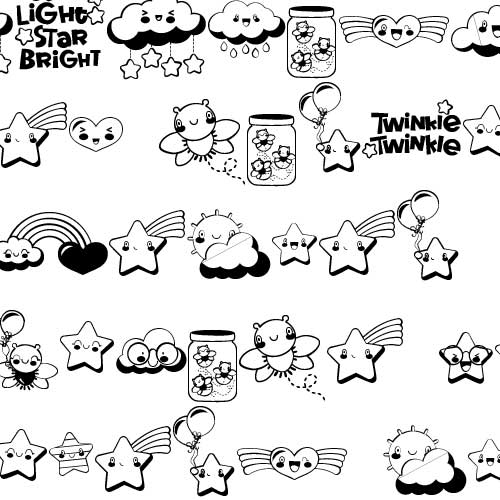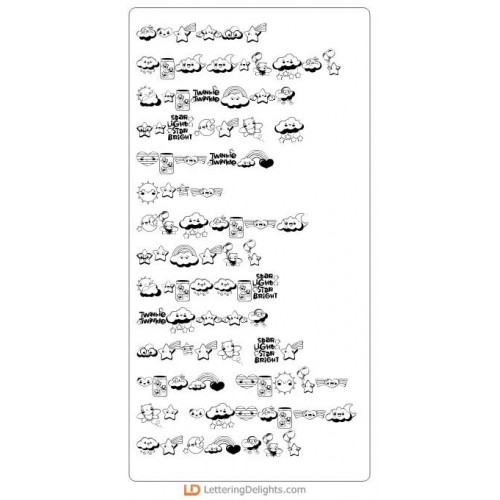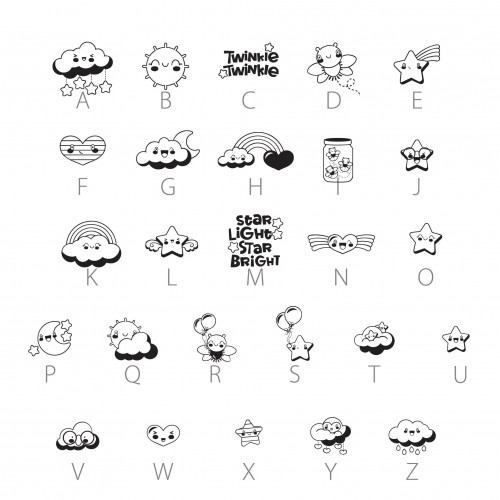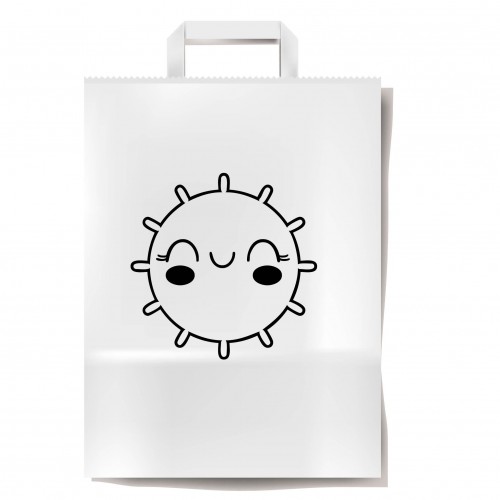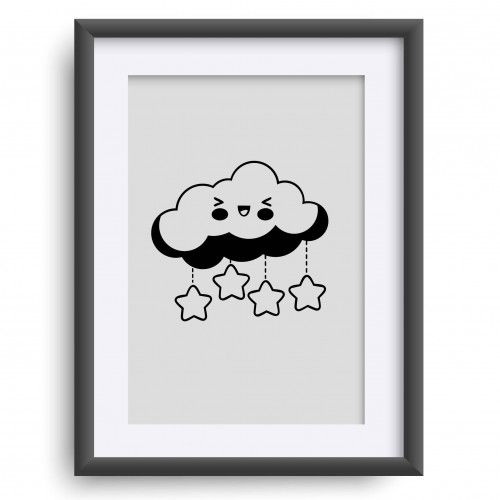
DB Twinkle - DB
This adorable doodlebat features 26 kawaii style stars, rainbows, hearts, and clouds, perfect for cards, crafts, decor, planner stickers, scrapbook pages, classrooms and more!